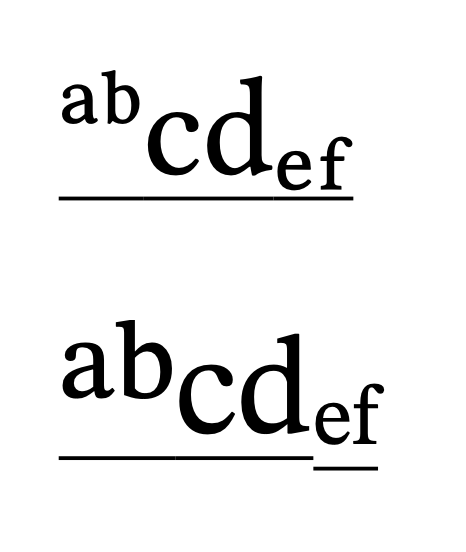
Why do different fonts yield different underline behaviors?
Here is a simple experiment:
#set underline(offset: 2pt, stroke: 0.3pt)
#underline[#super[ab]cd#sub[ef]]
#set text(font: "STIX Two Text")
#underline[#super[ab]cd#sub[ef]]
This yields:
Why is the underline function yielding different results? And how can I avoid this?
And while I’m at it, why do the superscripts and subscripts have different sizes in the second case? Should I redefine #sub() and #super to avoid this?
Here is a hint for us (also for me).
If we insert this, the result changes:
#set sub(typographic: false)
#set super(typographic: false)
All of them change except for the STIX Two Text’s ef which remains as it was.
Then: default font’s ab and ef were typographic, but only STIX’s ab was typographic and ef was synthesized.
• if we use typographic sub/supscript glyphs, as defined by the font, then the base font size doesn’t change and maybe that helps the underline to stay intact, font baseline doesn’t change?
• STIX two seems to have typographic supscript glyphs but not subscript ones. Unfortunately this leads to the size mismatch since they are generated differently, then.